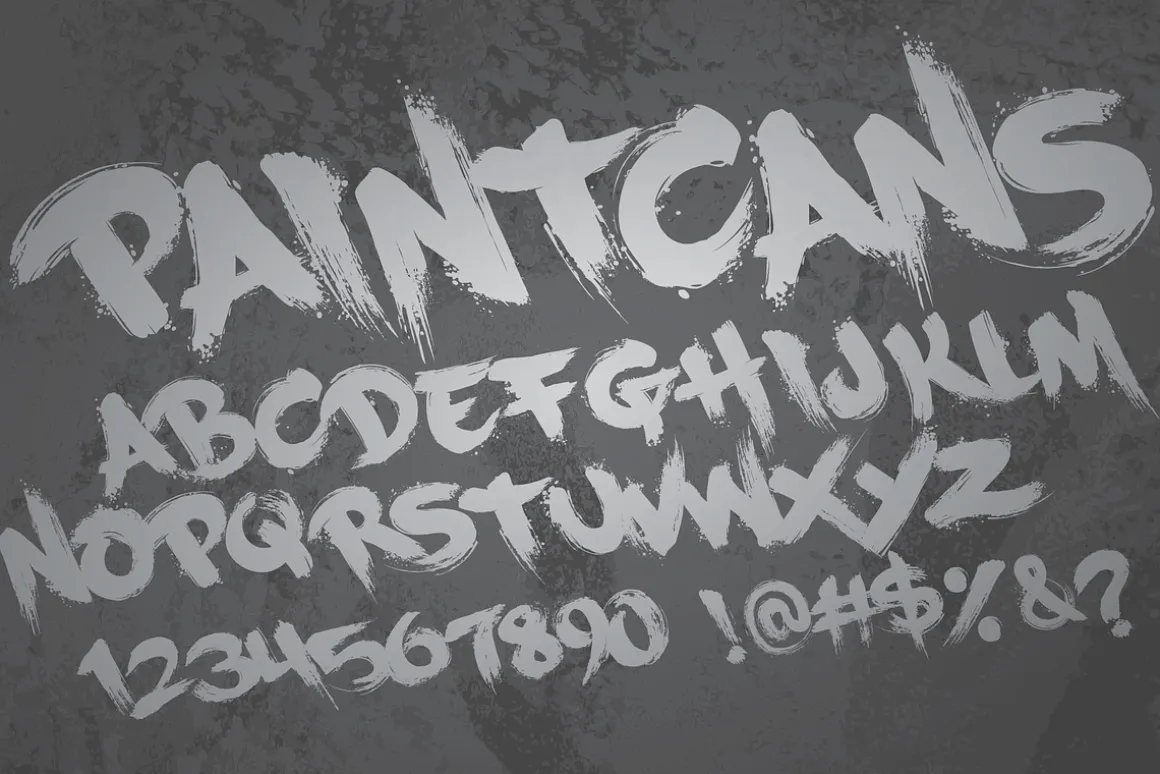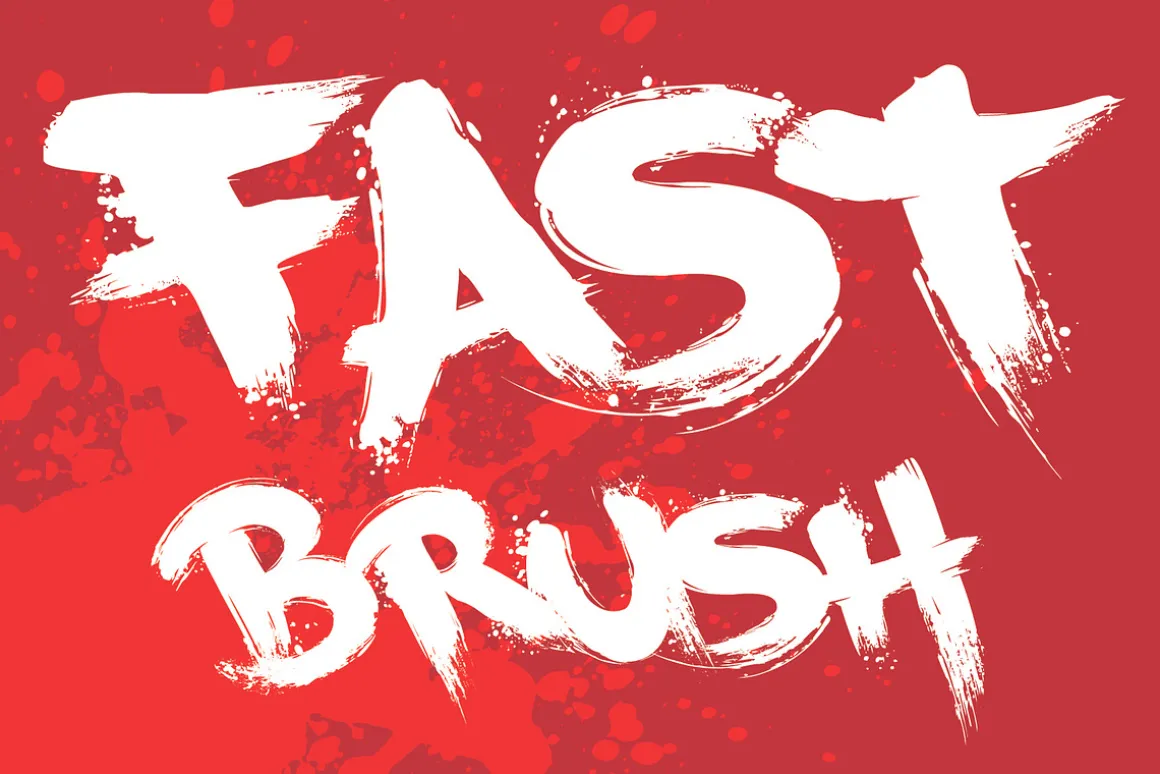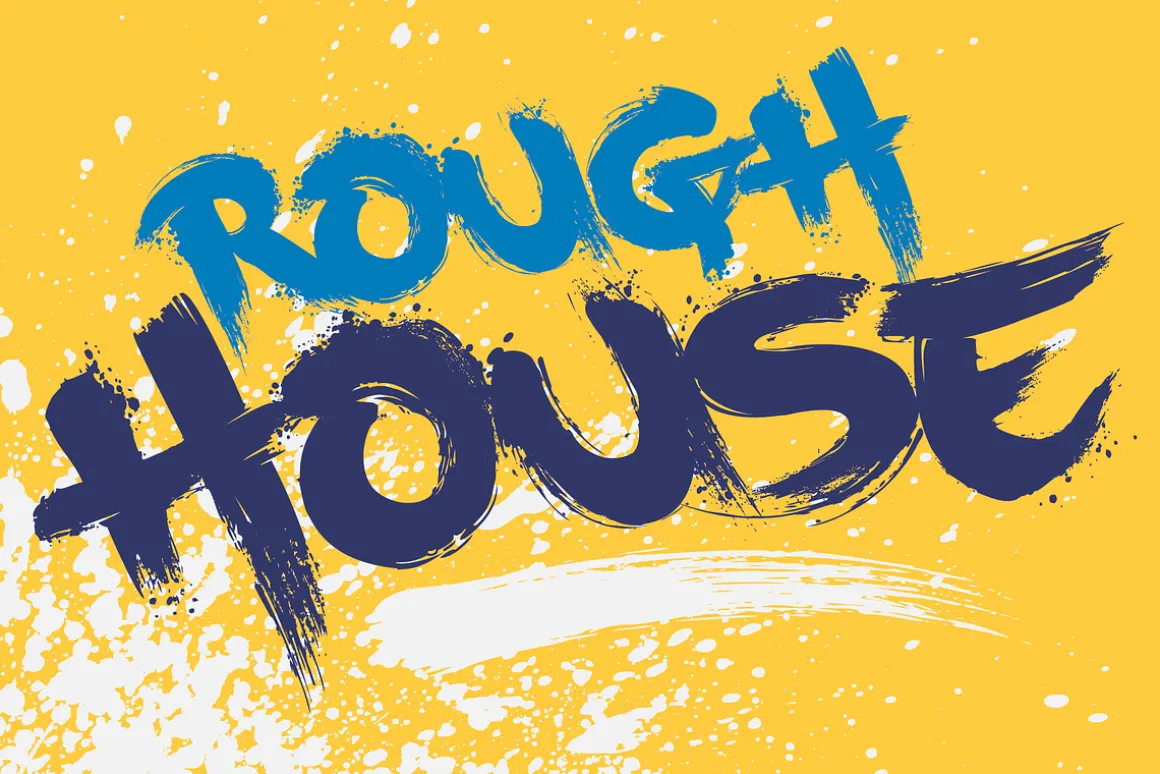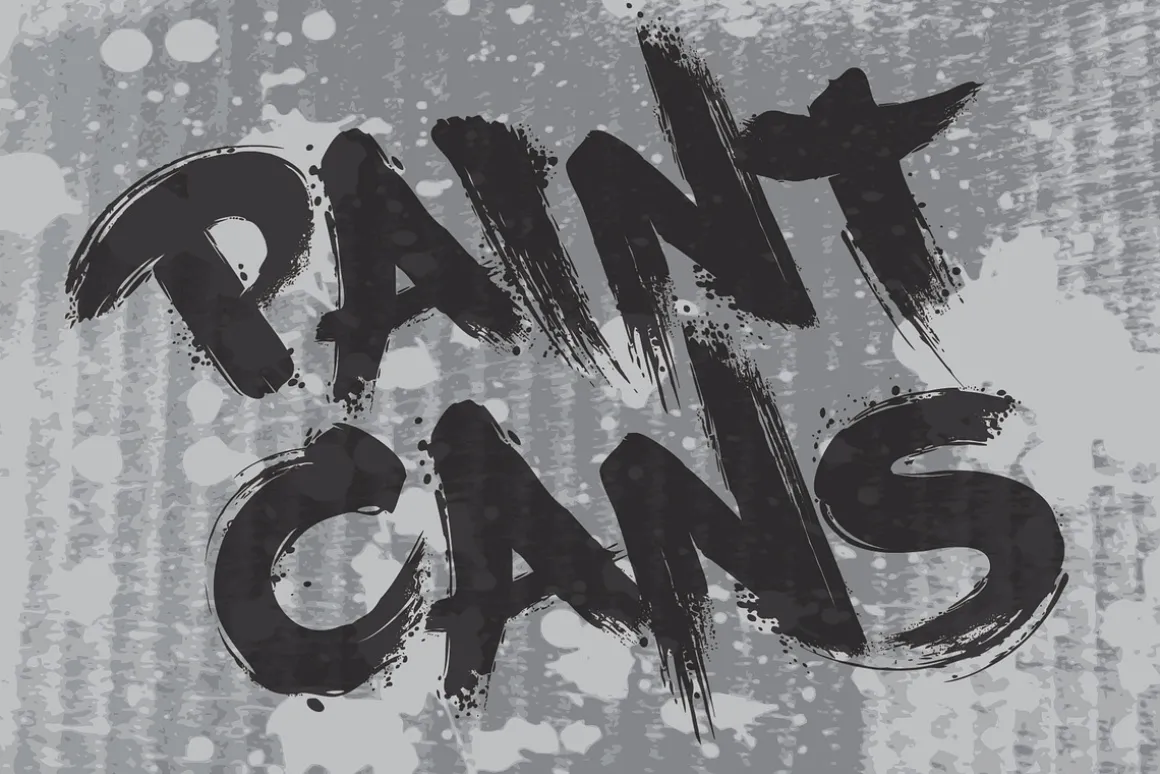
Paint Cans is a highly detailed brush font built to emulate rough & somewhat childlike graffiti lettering as written with a wide paint brush. This typeface features a full character set with basic latin multilingual support. PaintCans was first created in 2003 as has been utilized on a number major TV series, books, apps and print products. As one of the first naturalistic typefaces with anywhere near this level of detail PaintCans was a popular addition to the groundbreaking Graffiti Fonts® collection. This updated version has an expanded set of glyphs & optimized paths for better performance.